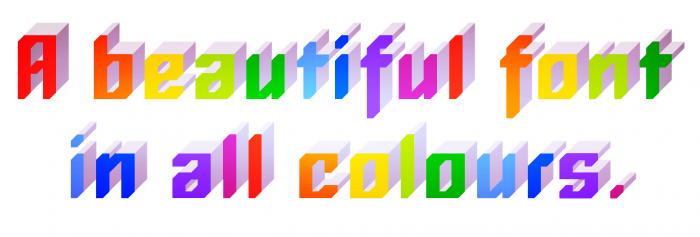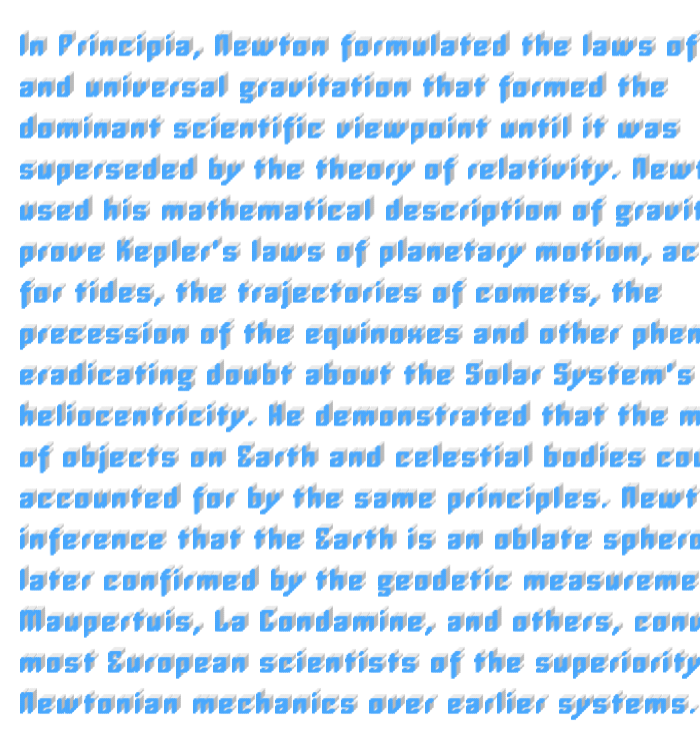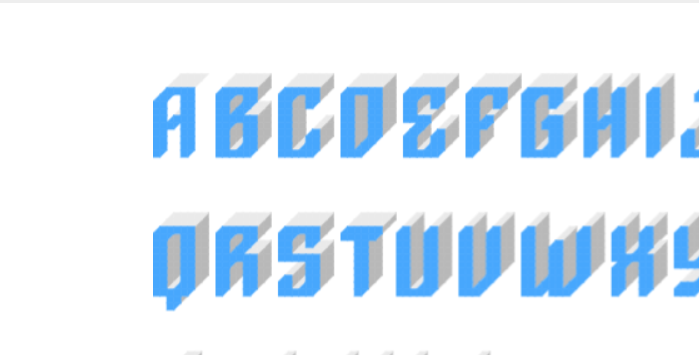
I love these kinds of fonts! Can we expect a 3D effect for the letters that do not have it?
@elmoyenique: Thank you for your comment and generous rating. I was very pleased with the results and wanted to share my work as soon as possible. I'm still working on the rest of the character set. All glyphs will get the 3D effect.
@elmoyenique: Thank you for the colorful demo. It would be nice to create a variable font version with sliders for Hue and Saturation.
Neldoreth is a revival of an experiment from 2011 ( see Font Neuf). It is based on a simple rule not to have backward leaning elements (like backslash). This rule makes it easy to add elements for the so-called Cavalier projection. All letters use the same three bricks, though I had to make concessions for the special characters and diacritical marks. I kept everything simple: no filters, no nudge.
This font is primarily a display font for short snippets of text. However, it also works for longer passages. (sample truncated at 700 px)
Something weird is going on with the A in the preview.
What's going on with the A?